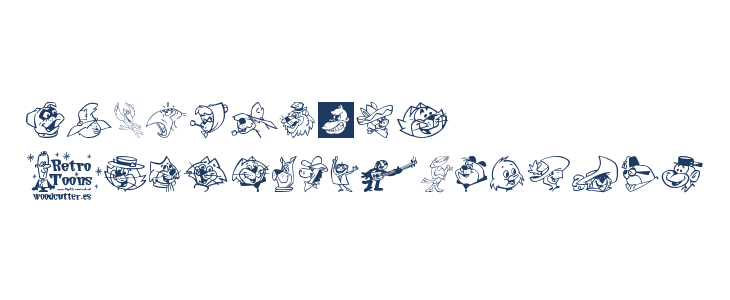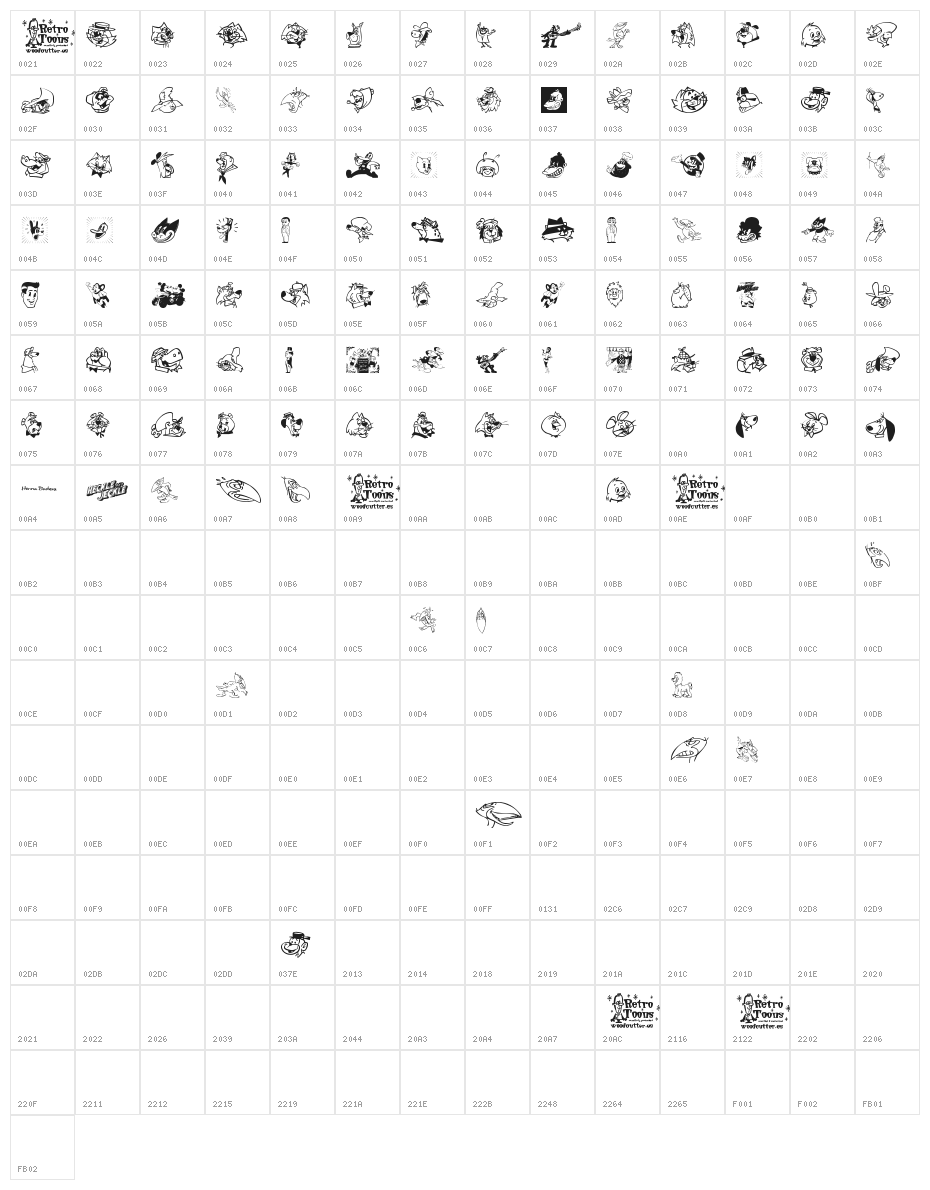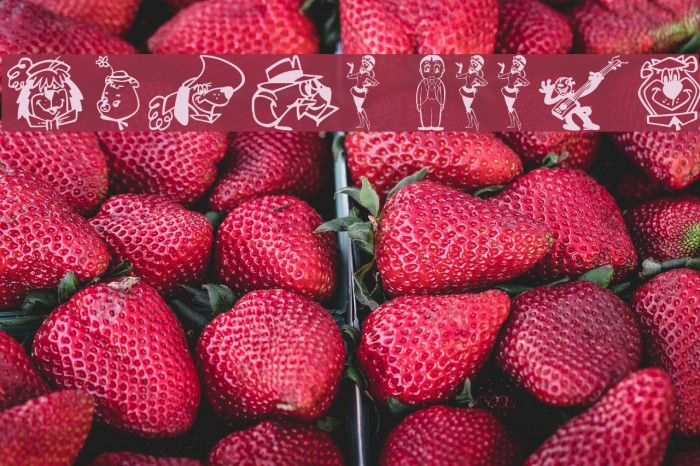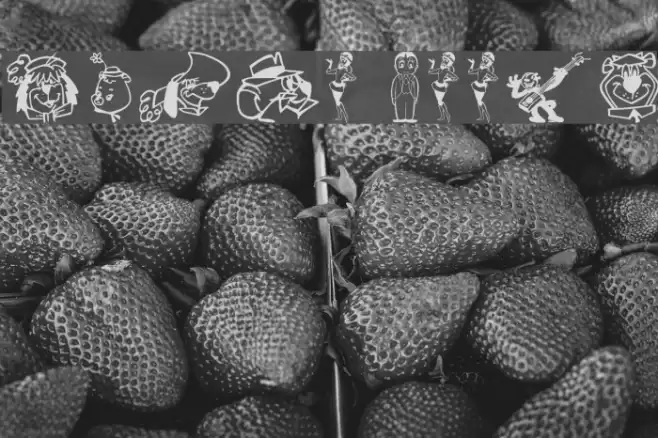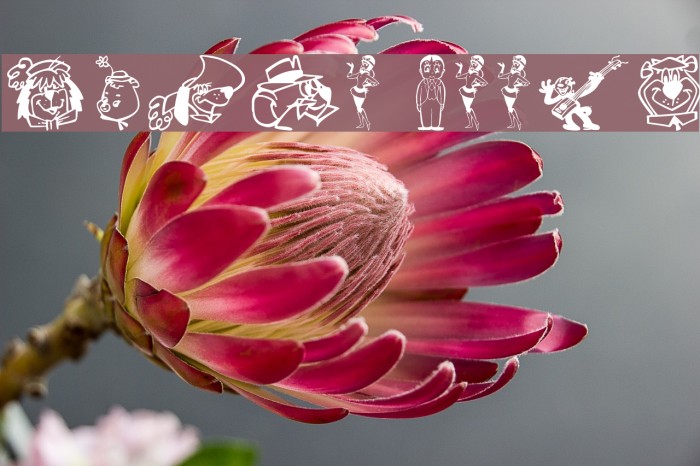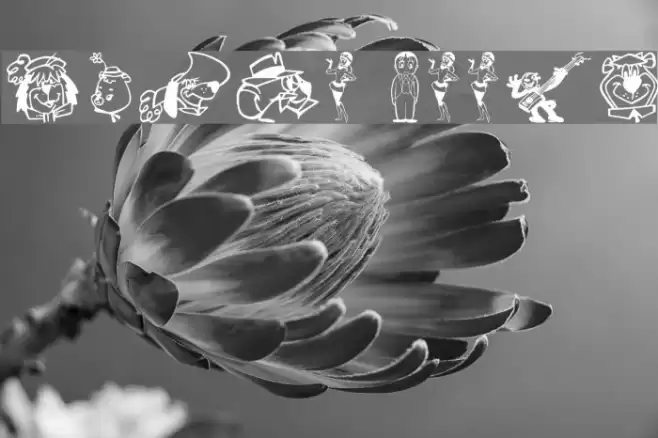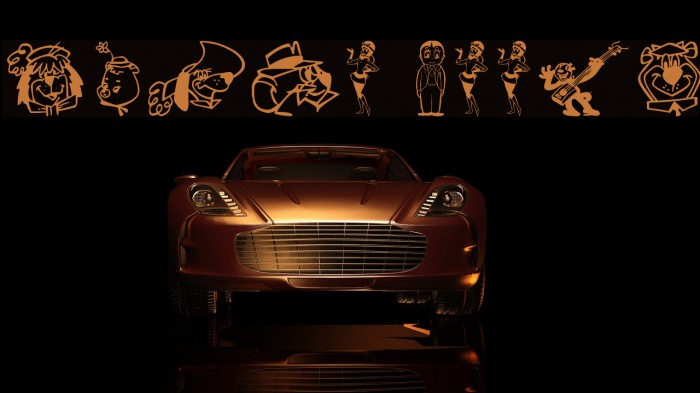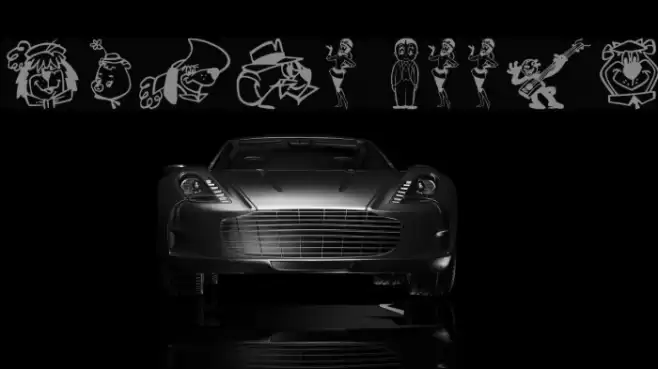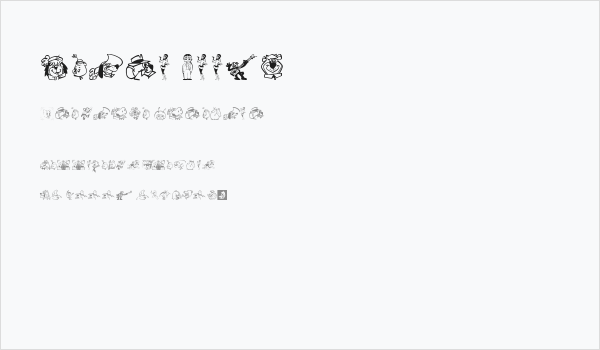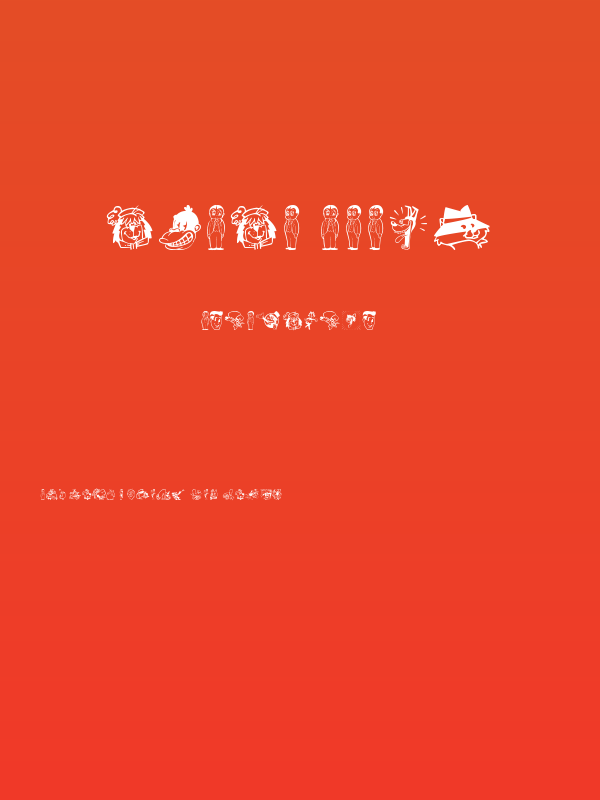
Retro Toons Font
Retro Toons Description
A collection of playful, hand-drawn cartoon character illustrations inspired by vintage animation styles, featuring exaggerated expressions and whimsical poses. The set is highly decorative and not suitable for standard text, focusing on unique character glyphs rather than traditional letterforms.
| Overall Style | Vintage, Decorative, Playful |
| Use Case | Illustrative elements, decorative titles, branding, and themed graphics. |
| Proposed Projects | ChildrenΓ’β¬β’s books, comic strips, retro-themed posters, playful branding, merchandise, and party invitations. |